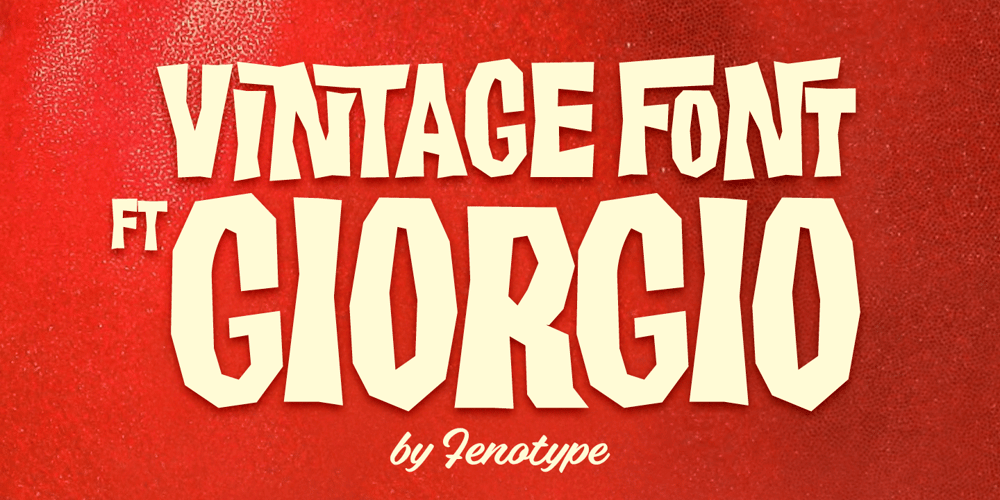
FT Giorgio
FT Giorgio font
FT Giorgio Font Family was designed by Emil Karl Bertell and published by Fenotype. FT Giorgio contains 3 styles and family package options. FT Giorgio is based on a hand lettering in a movie poster La Dolce Vita by Giorgio Olivetti. FT Giorgio has class-based kerning and around 200 automatic interlock ligature pairs which gives your design a custom look. To use the ligatures you only need to write in CAPS and use an OpenType-aware application.